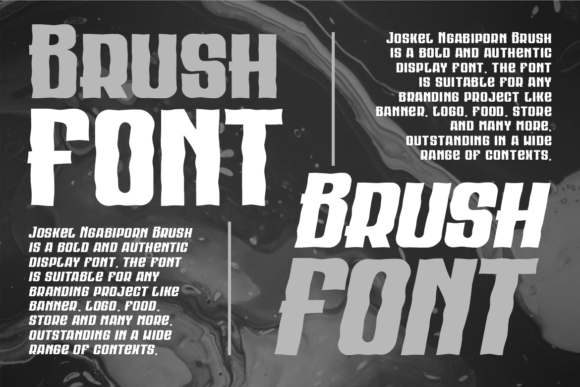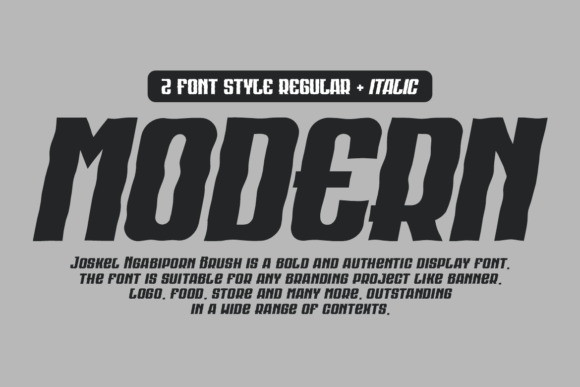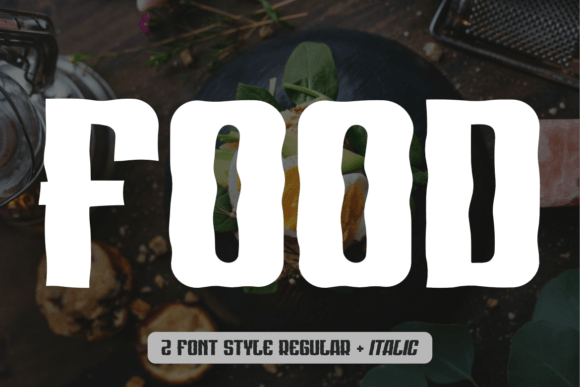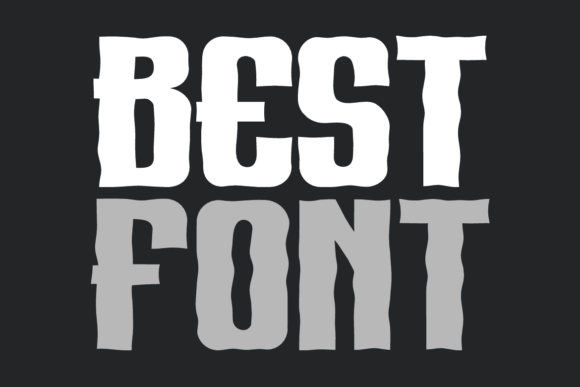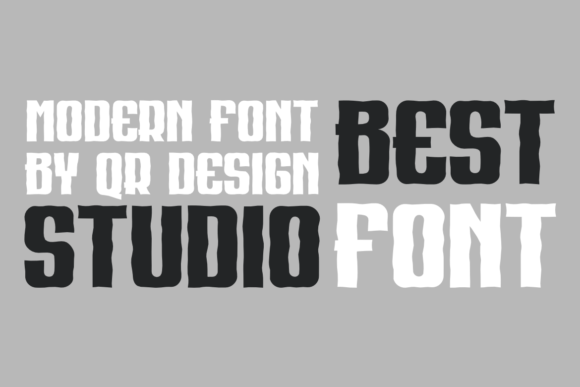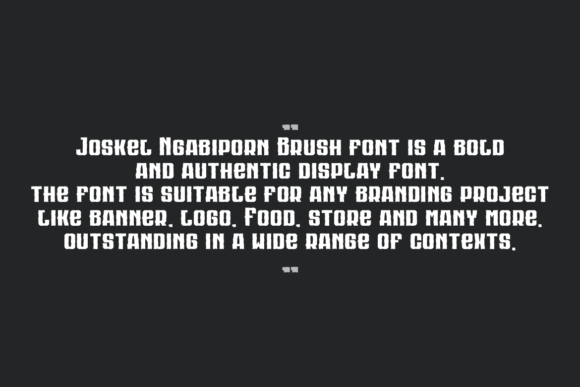
Introduction to Joskel Ngabiporn Brush Font
Joskel Ngabiporn Brush Regular + Italic Font is a bold and authentic display font.
The font is suitable for any branding project like logo, food, and many more Outstanding in a wide range of contexts.